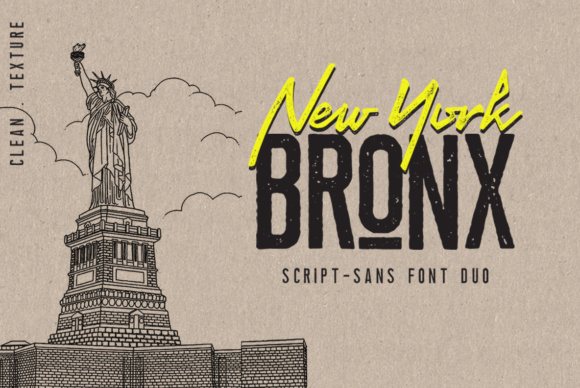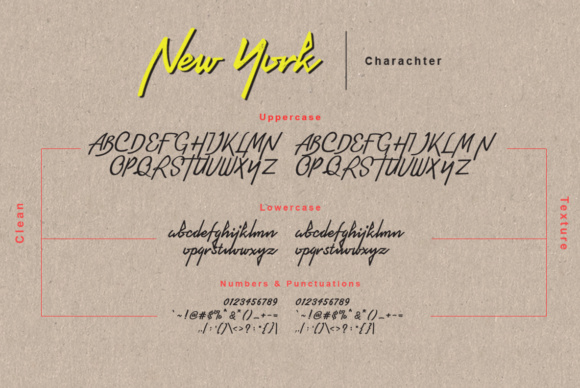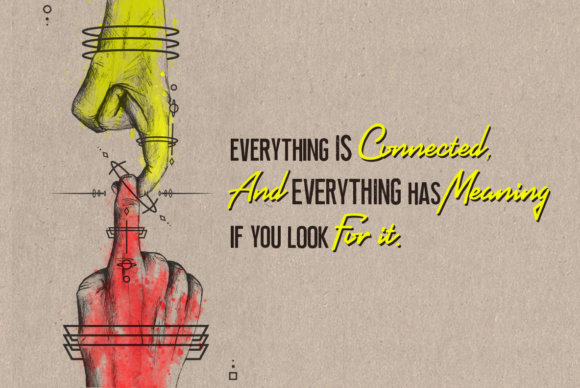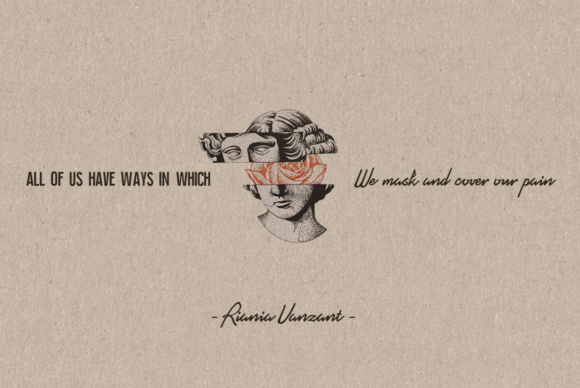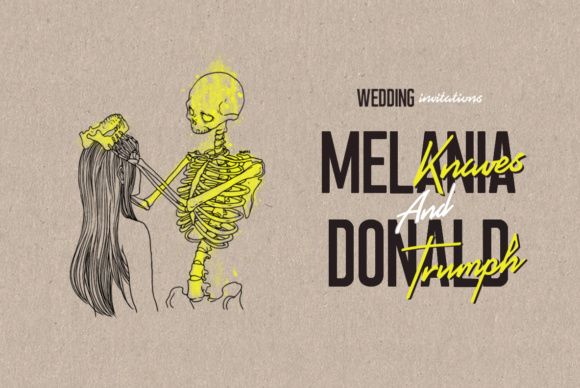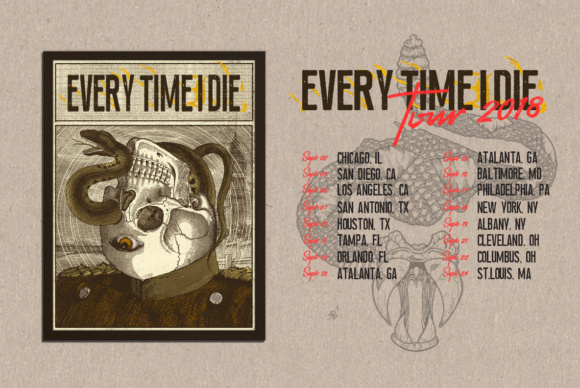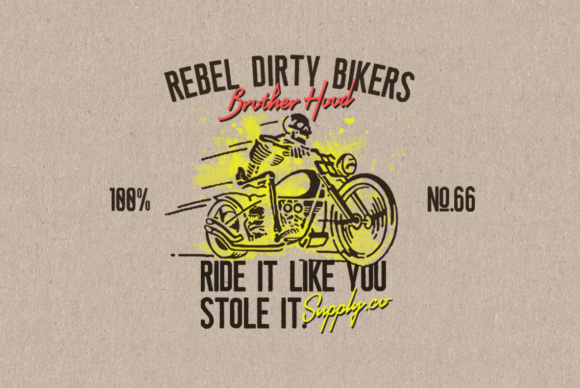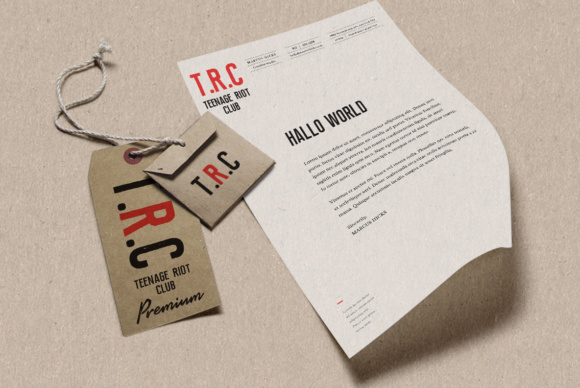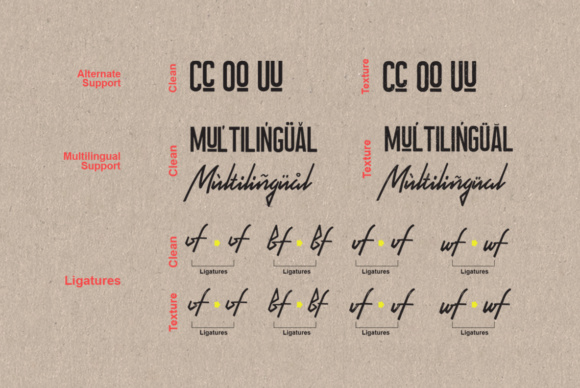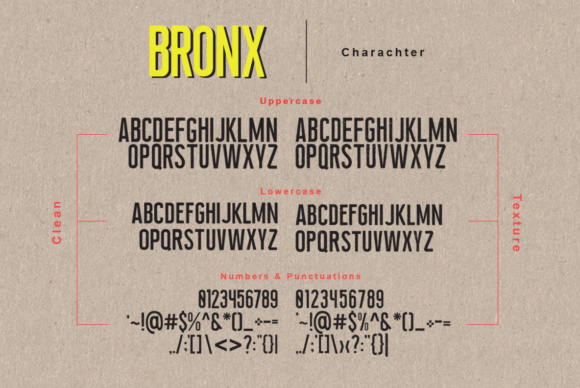
Newyork Bronx Duo Font
Introducing Newyork Bronx sans-script font duo, a classy, contemporary pair of script and serif fonts. With a stylish, clean, outline and trace style serif font, expressive script companion, Newyork Bronx script & sans duo offers a beautiful typographic harmony for a diversity of design projects, logo name, watermark logos & branding, wedding designs, social media posts, advertisements & product designs.